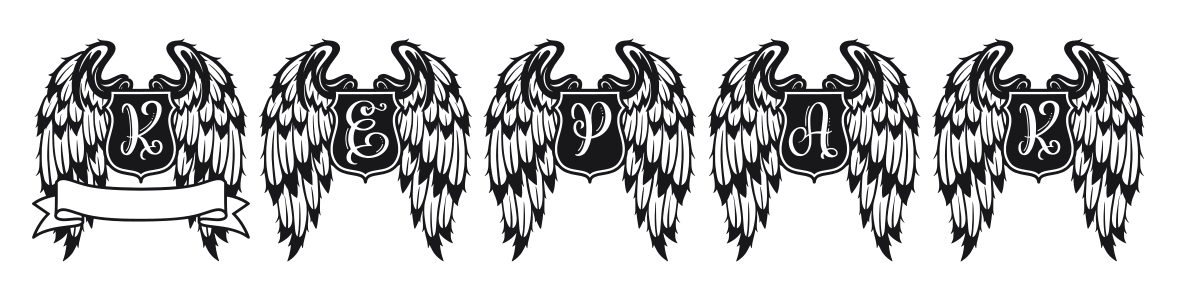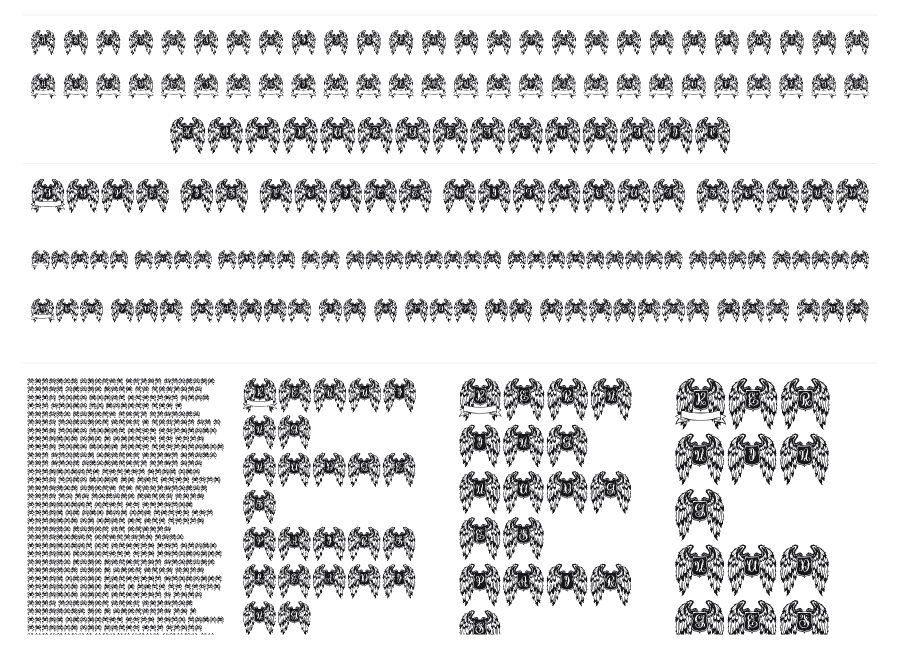
Kepak
Kepak is a winged monogram dingbat font where every letter is framed by a dramatic pair of feathered angel wings. Each glyph functions as a self-contained emblem, combining an ornamental letter with symmetrical heraldic wings in dense illustrative linework. The result is somewhere between Victorian crest design and contemporary streetwear graphics.